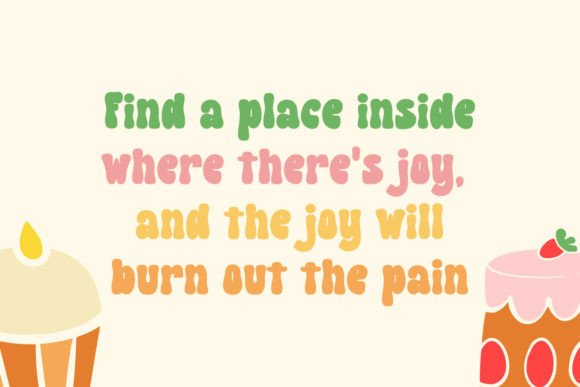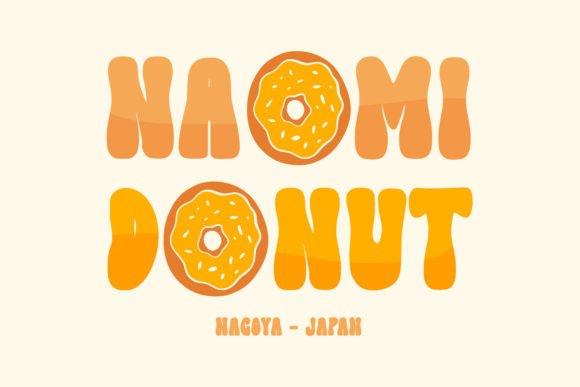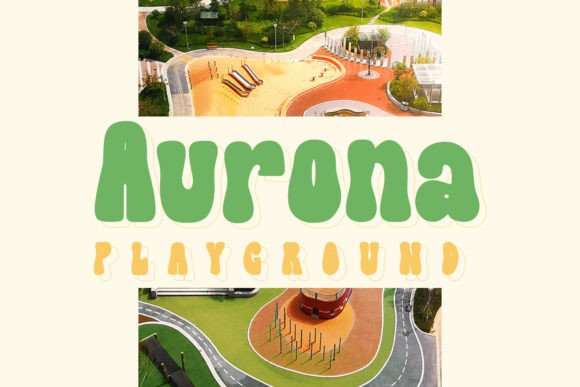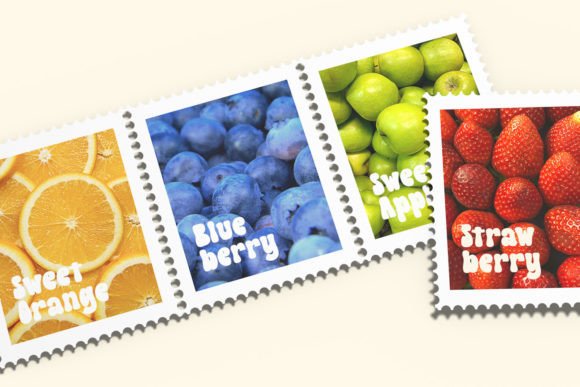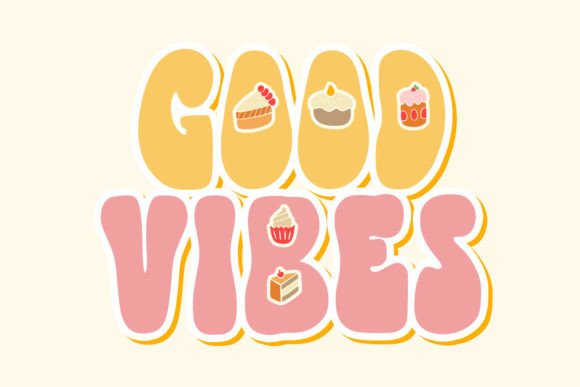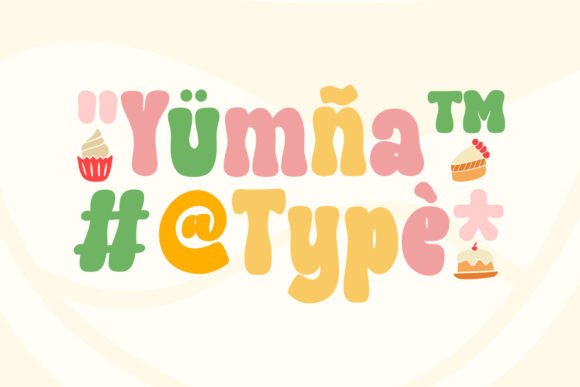
The Ultimate Display Font for Creative Projects: A Deep Dive into Grass Jelly Font
Have you ever been in the middle of a design project, and suddenly, you’re stuck on finding the perfect font? I recall a similar experience while working on a fun craft project for a client who wanted a bold, eye-catching display font. After scouring through numerous font libraries, I stumbled upon the Grass Jelly Font, and it instantly became my go-to choice. In this article, I’ll share my experience with this unique font, its features, and how to make the most of it in your designs.
First Impressions: What I Love About Grass Jelly Font
The Grass Jelly Font is a game-changer for designers looking for a firm, prominent font to make their designs stand out. Here are some of the things I love about it:
- ✨ Unique and eye-catching design: The Grass Jelly Font has a somewhat circled display style that produces artistic, creative, and fun nuances.
- ✅ Thick, strong contrast lines: The font’s bold lines attract attention and leave a strong impression, making it perfect for big text sizes.
- ✅ Easily legible: Despite its bold design, the font remains clear and easy to read, even at large text sizes.
Honest Review: A Few Quirks to Consider
While the Grass Jelly Font is an excellent choice for many design projects, there are a few quirks to keep in mind:
- 🤔 Limited use cases: Due to its bold design, the Grass Jelly Font might not be suitable for body text or small font sizes.
- ⚠️ Glyph limitations: As with any font, some glyphs or special characters might not be included or might have limited variations.
The Designer’s Inspiration Behind Grass Jelly Font
The Grass Jelly Font was designed with the intention of creating a bold, eye-catching display font that would add a touch of playfulness to designs. The designer aimed to craft a font that would be both artistic and fun, with a unique, somewhat circled style.
| Font Name | Grass Jelly Font |
| Author | Yumna_Type |
| What is the Grass Jelly Font best used for? | The Grass Jelly Font is ideal for headings, titles, and big text sizes where a bold, eye-catching font is desired. |
| Is the Grass Jelly Font suitable for body text? | No, due to its bold design, the Grass Jelly Font is not recommended for body text or small font sizes. |